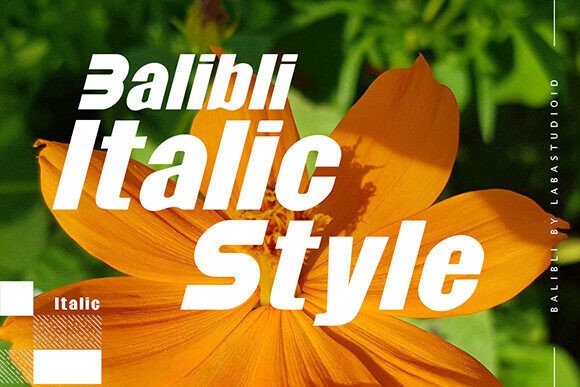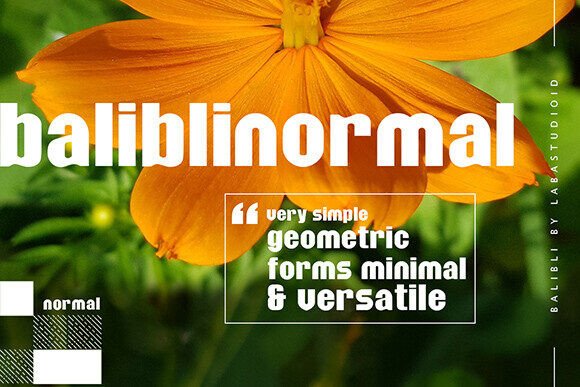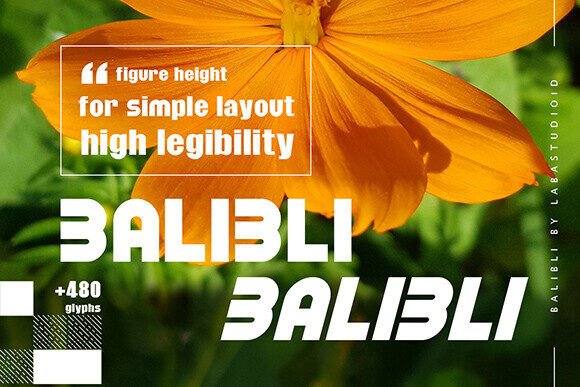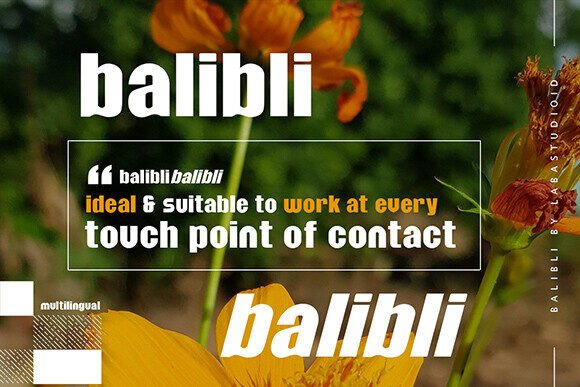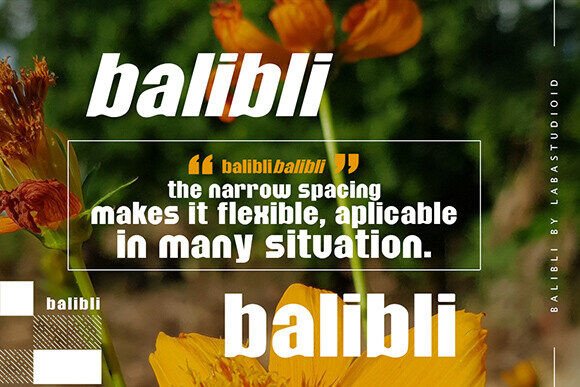
Unlocking the Power of Balibli Font
The moment a creative spark ignites, and a new project begins, the right font can make all the difference. It’s that one element that elevates your design from ordinary to extraordinary. As designers, we’ve all been there – searching for the perfect font to convey our message and leave a lasting impression.
Enter the Balibli Font, a sleek and modern design that’s built to give weight and firmness to every design work. Its strong form, high readability, and elegant lines make it an ideal choice for headlines, brands, and logos. With two styles to choose from – normal and italic – this versatile font is a valuable addition to any designer’s toolkit.
Balibli Font Key Features
- Font Family: Balibli is a sans-serif font family, designed for modern and clean typography.
- Character Set: Supports a wide range of languages, including Latin, Cyrillic, and Greek alphabets, making it a versatile choice for global designs.
- Unique Characteristics: Balibli features a unique blend of geometric and organic elements, resulting in a distinctive and modern aesthetic.
Review of Balibli Font
I recently had the chance to work with the Balibli font, and I must say it’s a unique and intriguing choice. Here’s my honest take on what works and what doesn’t.
- The Balibli font has a very distinct and recognizable style, which can be a great asset for brands looking to stand out.
- It’s highly legible, even at smaller font sizes, making it suitable for a wide range of applications.
- The font’s x-height is well-balanced, which contributes to its overall readability.
- The Balibli font can feel a bit too ornate for some projects, which may detract from the overall message.
- It may not be the best choice for projects requiring a lot of emphasis on text, as the font’s flair can make it difficult to distinguish between different levels of importance.
- Some users may find the font’s irregularities to be a bit jarring, particularly in longer blocks of text.
While the Balibli font has its limitations, I think it can be a great choice for the right project. Its unique style and high legibility make it a great option for brands looking to stand out and convey a sense of sophistication. Just be sure to use it judiciously and in the right context.
The Balibli Font is versatile and can be used in a variety of applications, including:
– Marketing materials, such as brochures and flyers
– Digital graphics and social media posts
– Educational materials, such as textbooks and presentations